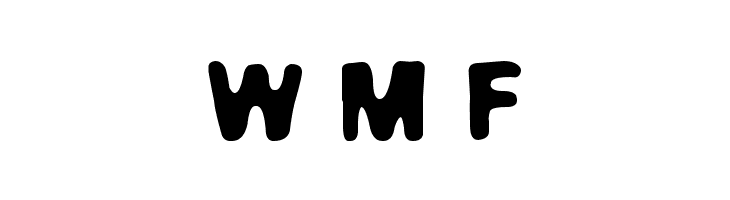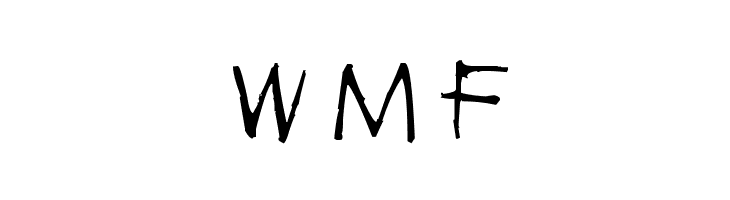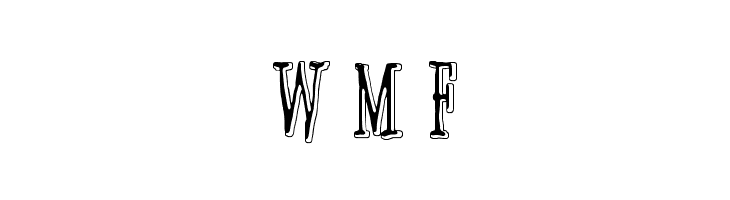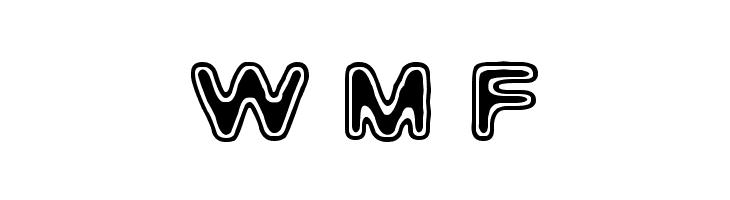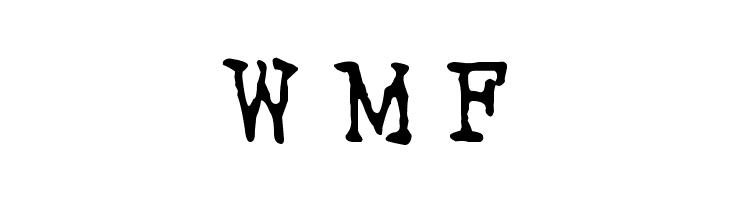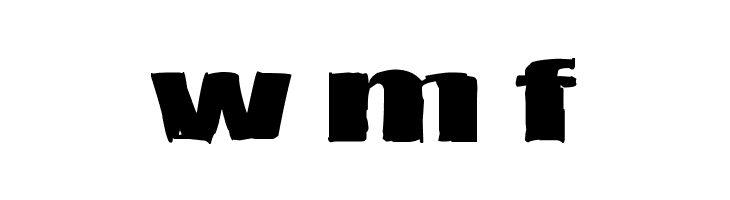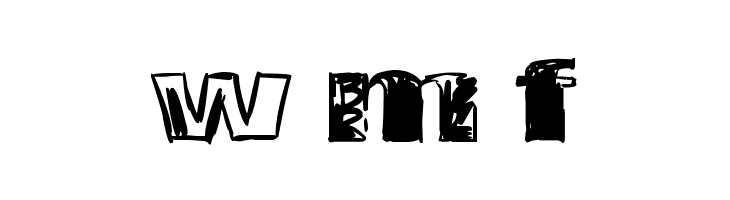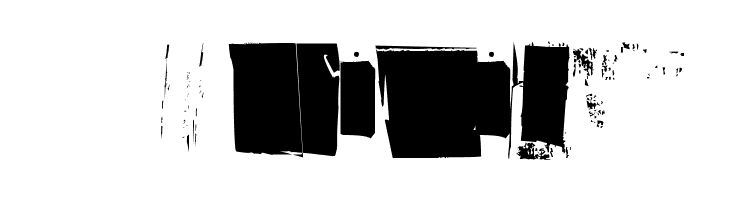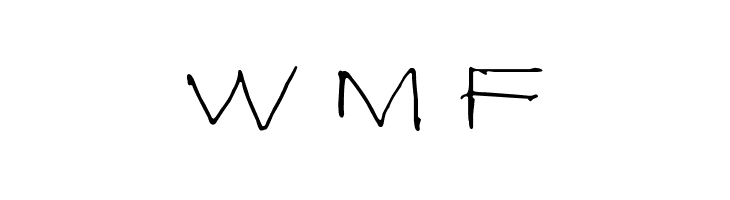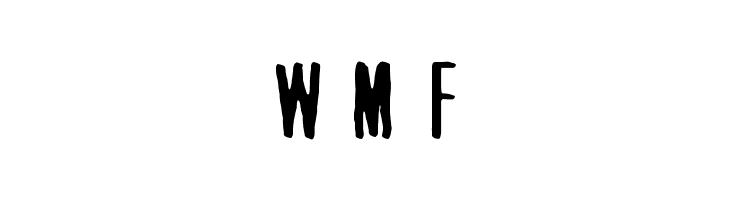
• Jokioinen
A bold, playful font with rounded edges and a hand-drawn feel.
• Jokioinen
A bold, rounded font with a playful, hand-drawn style.
• Forty-six
A bold, distressed font with a vintage, grunge aesthetic.
• Echoes
A bold, hand-drawn font with a rough, textured, and expressive style.
• Open your eyes
A distressed, grunge-style font with a hand-drawn, organic appearance.
• Hugo Z
A bold, hand-drawn font with a playful and artistic style.
• Tricky Christine
A grungy, distressed font with a hand-drawn, rebellious style.
• This is nu jazz
A playful, rounded font with consistent stroke thickness and a friendly appearance.
• Rho Cassiopeiae
A bold, outlined font with a playful, three-dimensional effect.
• January Threed
A bold, playful font with a three-dimensional effect and rounded edges.
• Right to remain silent
A bold, textured, hand-drawn font with a casual and artistic style.
• Balochisaurus
A bold, outlined font with a playful, retro style.
• Quiet Evening
A playful, bold font with a hand-drawn, whimsical style.
• Non watercolor
A rustic, hand-drawn font with uneven strokes and a vintage feel.
• Animals are like people
A bold, hand-drawn font with a rugged and organic appearance.
• Dirty Old Town
A bold, distressed font with a grunge, industrial style.
• Union soap
A playful, hand-drawn font with bold outlines and textured interiors.
• Syntinen ihminen on kaunis ihmi
A bold, expressive handwritten font with uneven strokes and a playful, organic style.
• Tango Psychedelia
• Tulikuume
A bold, distressed font with a rugged, industrial style.
• Tulihuuma
A bold, distressed font with a grunge aesthetic and rough texture.
• Sensuroitu